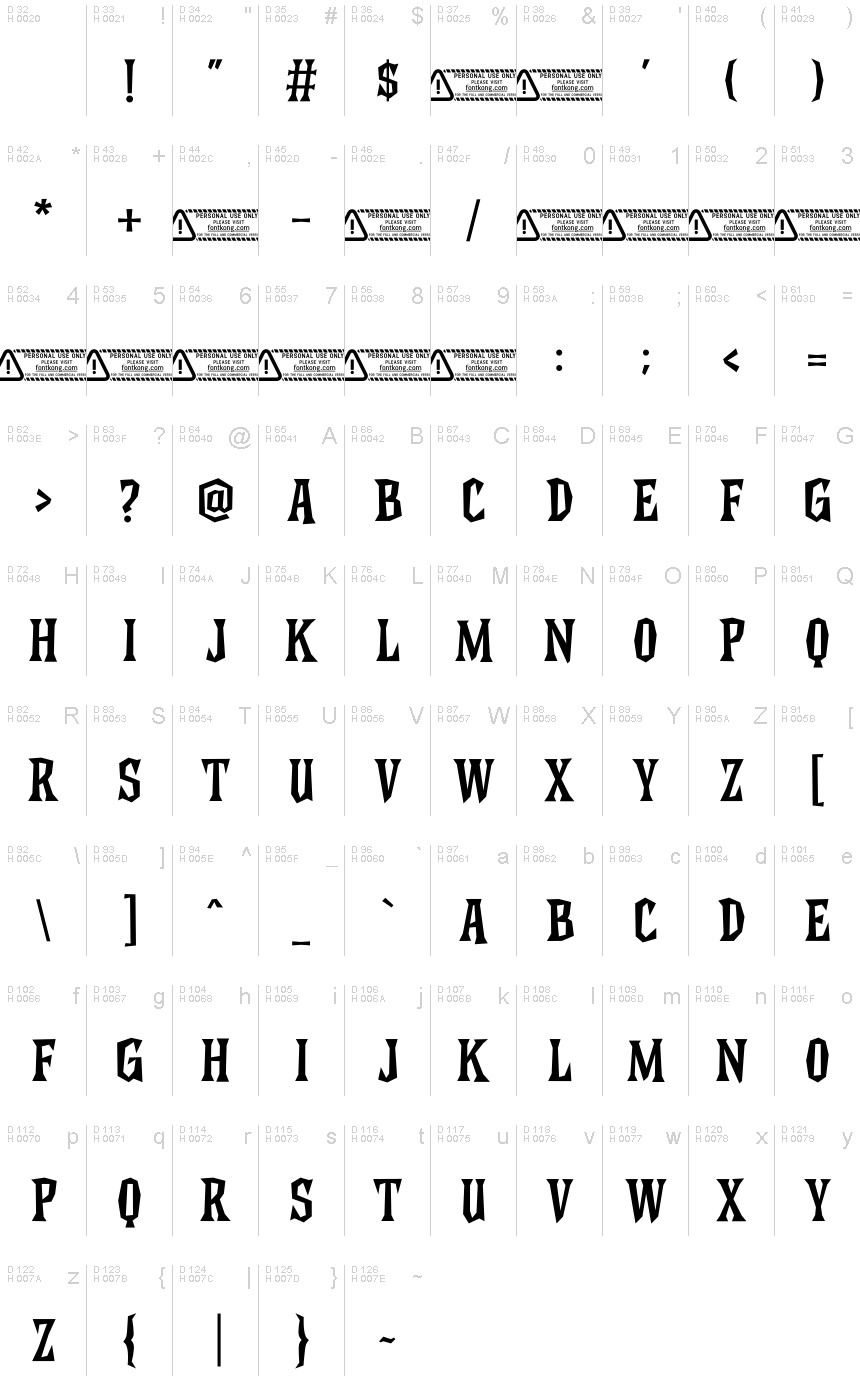
Blinders font by Kong Font is a dynamic display typeface with blocky, angular letters and a strong presence that makes it truly unforgettable. This condensed font features distinct decorative elements that add a vintage-inspired feel wherever the font is used. Download this free techno display font for projects of all sizes.
Use Blinders in branding projects, logos, packaging designs particularly for food and drink products, labels, book covers including novels, magazines posters or covers for album records as it thrives at the foreground of busy designs while flawlessly making information stand out clearly. Typographic artworks look even more powerful when designed using this impressive font.